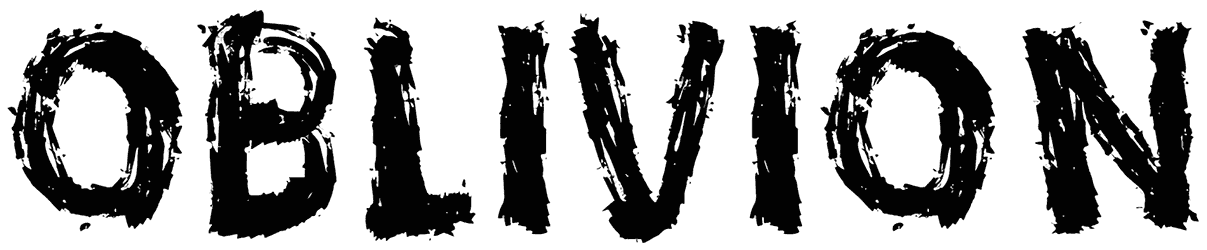
CF Oblivion Font
Designed byCloutierfontes
Add CF Oblivion as a new font, and you will no longer have problems executing newspaper headlines, community posters, and urban projects. This brush font has an ink shape that is faded and spread at the letters’ upper end and has taken on an old look.
Using this destroyed font, you can put the charm of old magical arts in a creative direction and bring a lasting design by repairing the past and present, without lowercase letters.